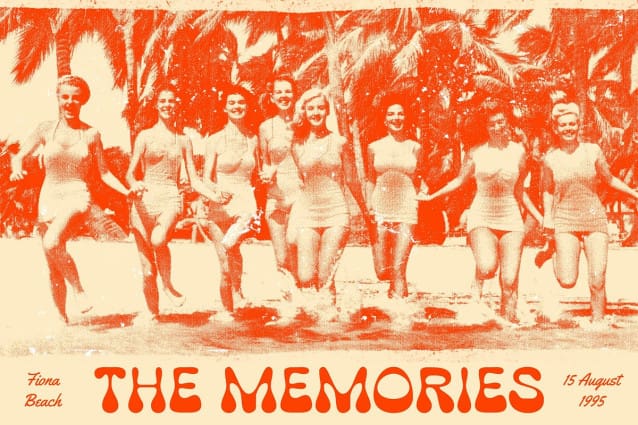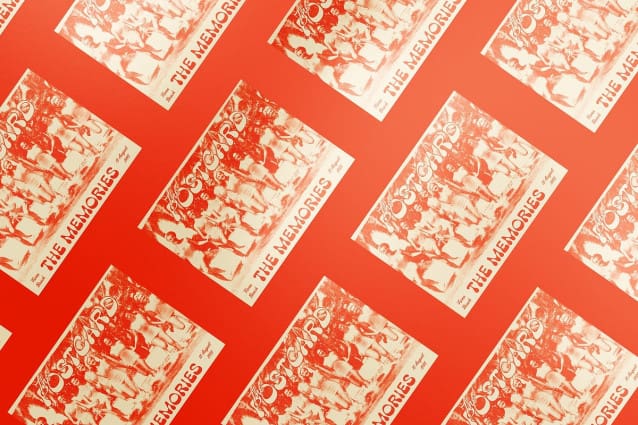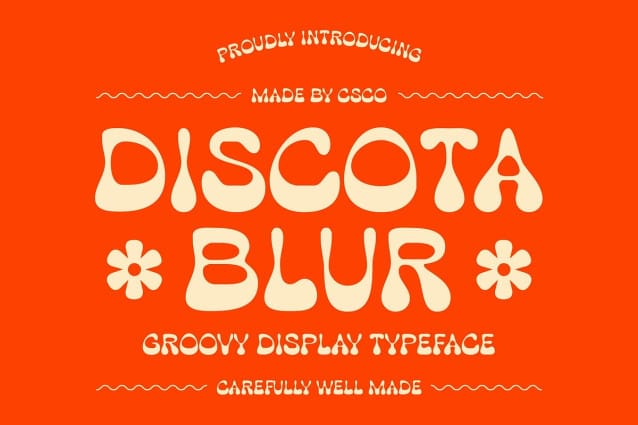
Discota Blur Font
Discota Blur Font is a captivating display font that showcases bubble-like shapes and a whimsical psychedelic design. Its funky and cute aesthetic brings a sense of fun and creativity, making it perfect for projects that aim to stand out and spread joy. The unique character of this font allows it to shine in various design contexts, from casual to more artistic expressions, providing versatility for creators.
Unique Blur Effect The added blur effect enhances the playful character of the font, giving it a dreamy and dynamic quality. This feature not only adds visual interest but also contributes to the font’s cheerful vibe, making it an excellent choice for engaging and imaginative designs. The blur effect lends a sense of motion, inviting viewers to experience a visual journey, which is particularly impactful in eye-catching marketing materials and promotional content.
Ideal for Creative Projects Perfect for a variety of creative applications, Discota Blur is ideal for children’s materials, vibrant branding, and playful graphics that capture attention. Whether used for event posters, product packaging, or social media campaigns, this font ensures your message is delivered with a delightful flair.